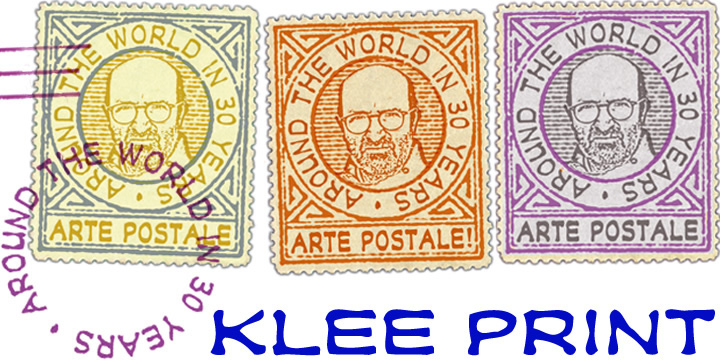
• Klee Print
Klee Print is based on the handwritten capitals of the American artist, Emma Klee, to which a matching lowercase and many accented characters have been added.